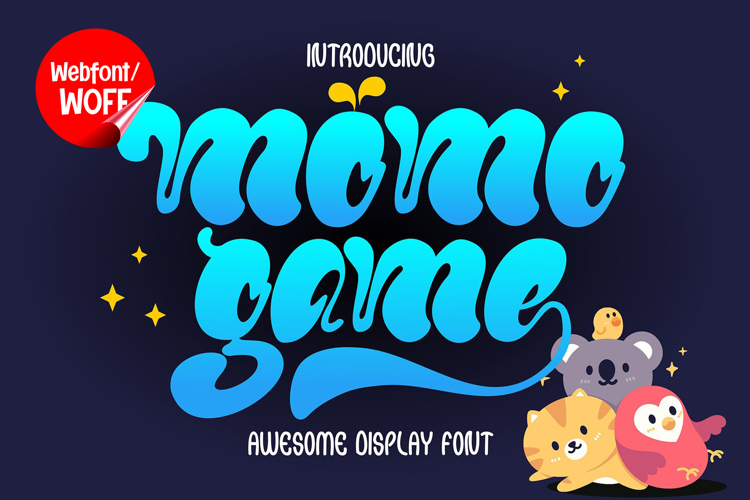
Momo Game | Unique Graffiti Webfont for Creative Websites
Momo Game is a unique graffiti webfont designed to bring a fresh, playful, and creative urban style into modern website design. With its distinctive letterforms and unconventional shapes, this font stands out from typical graffiti styles by combining bold expression with a fun and experimental visual approach. It is a perfect choice for designers who want to create eye-catching layouts with strong character and originality.
Momo Game features a complete set of uppercase characters designed with unique graffiti-inspired forms. Each letter is crafted with creative variations that give the font a lively and dynamic appearance. These bold shapes are ideal for headlines, banners, hero sections, and featured content where visual impact is essential. The unconventional style helps content stand out and creates a memorable impression.
In addition to letters, the font includes numbers and punctuation, allowing flexible usage across different parts of a website. It can be used for promotional text, pricing displays, event information, and navigation highlights. Every character maintains the same distinctive graffiti style, ensuring consistency and cohesion throughout the design.
With multilingual support, Momo Game includes a wide range of accented characters, making it suitable for international websites and global audiences. This allows content to be presented clearly across different languages while preserving the font’s unique visual identity.
The creative graffiti style of Momo Game makes it especially suitable for urban-themed websites, gaming platforms, streetwear brands, music projects, and creative portfolios. Its playful and expressive design adds energy and personality, helping websites stand out in competitive digital spaces. The unique forms also make it a strong choice for branding and visual storytelling.
Despite its artistic and unconventional style, Momo Game is designed with readability in mind. The spacing and proportions are carefully balanced to ensure clarity, especially when used in display sizes. This makes it effective for bold headings and short content elements where both style and usability are important.
Momo Game is a webfont that combines graffiti creativity with modern digital functionality. Its unique shapes, bold expression, and playful energy create a distinctive visual identity that enhances website design. For projects that require originality, strong character, and an urban creative edge, Momo Game provides a fresh and engaging typographic solution.